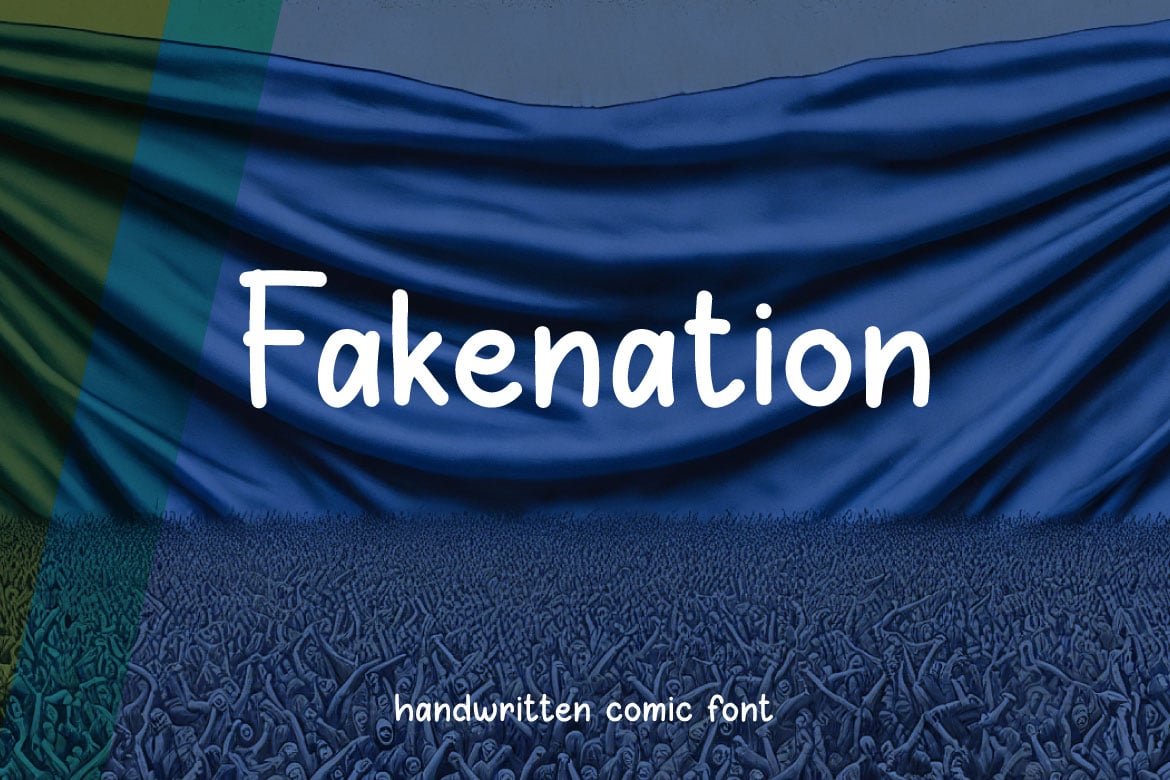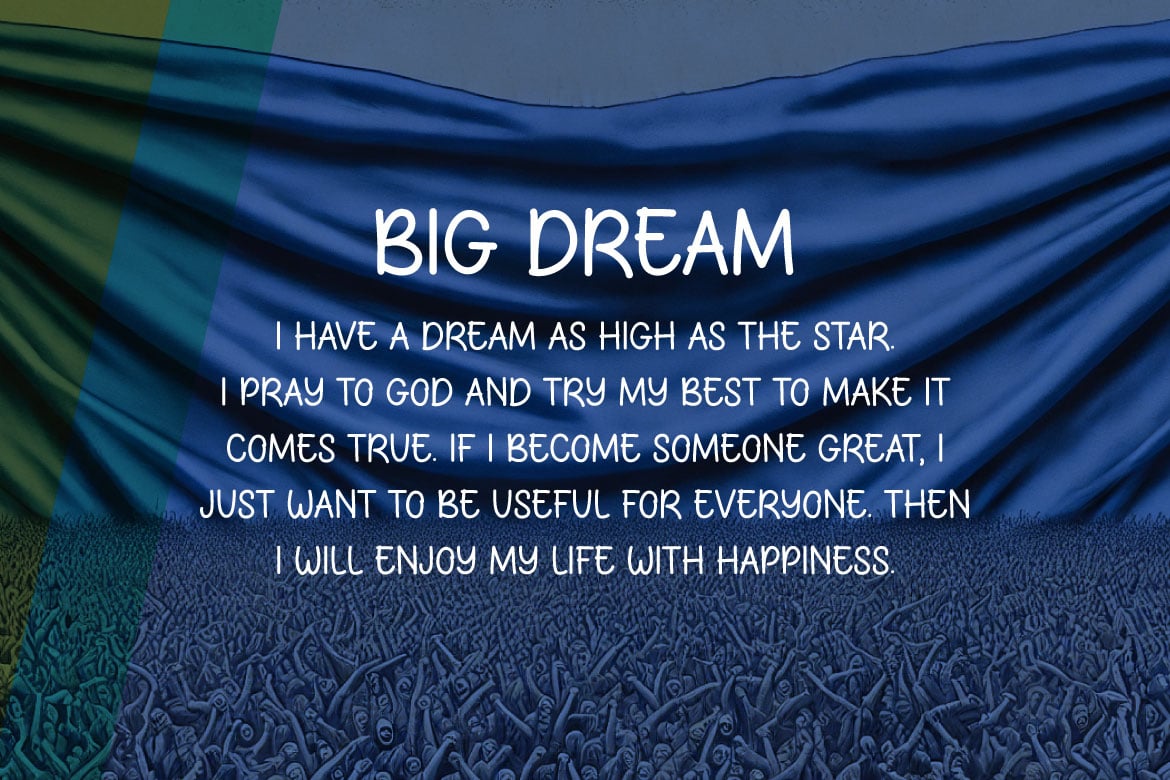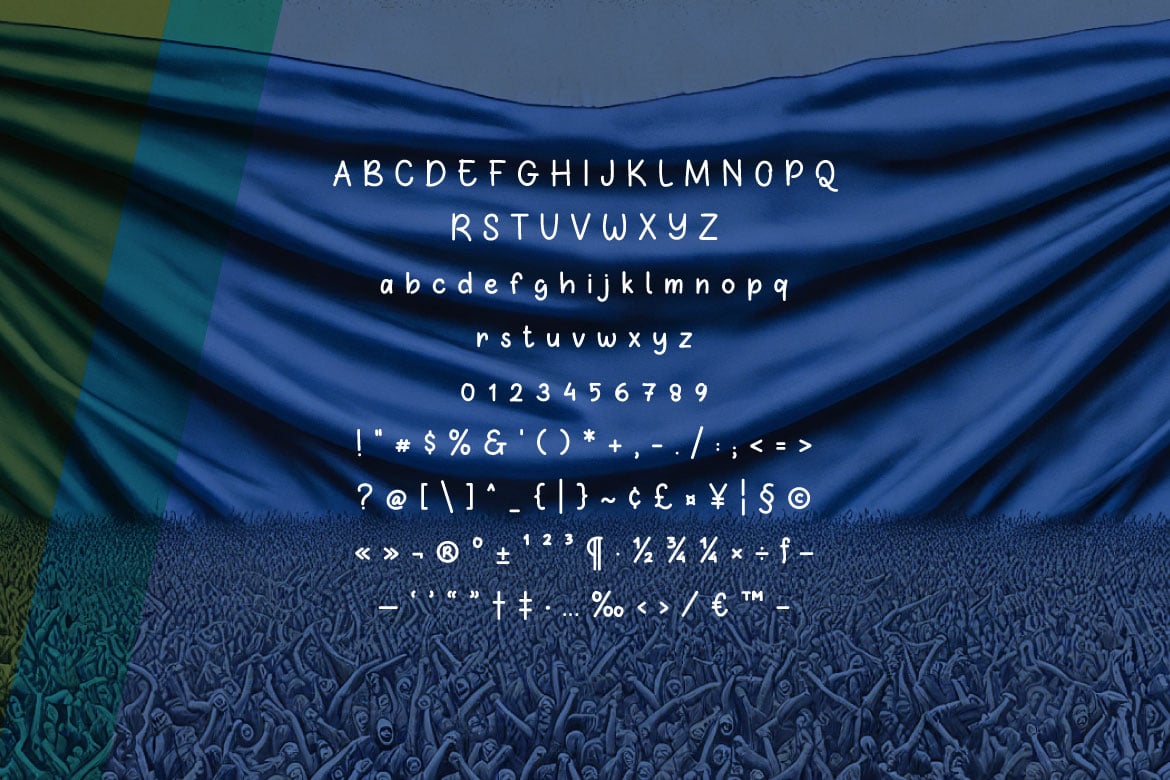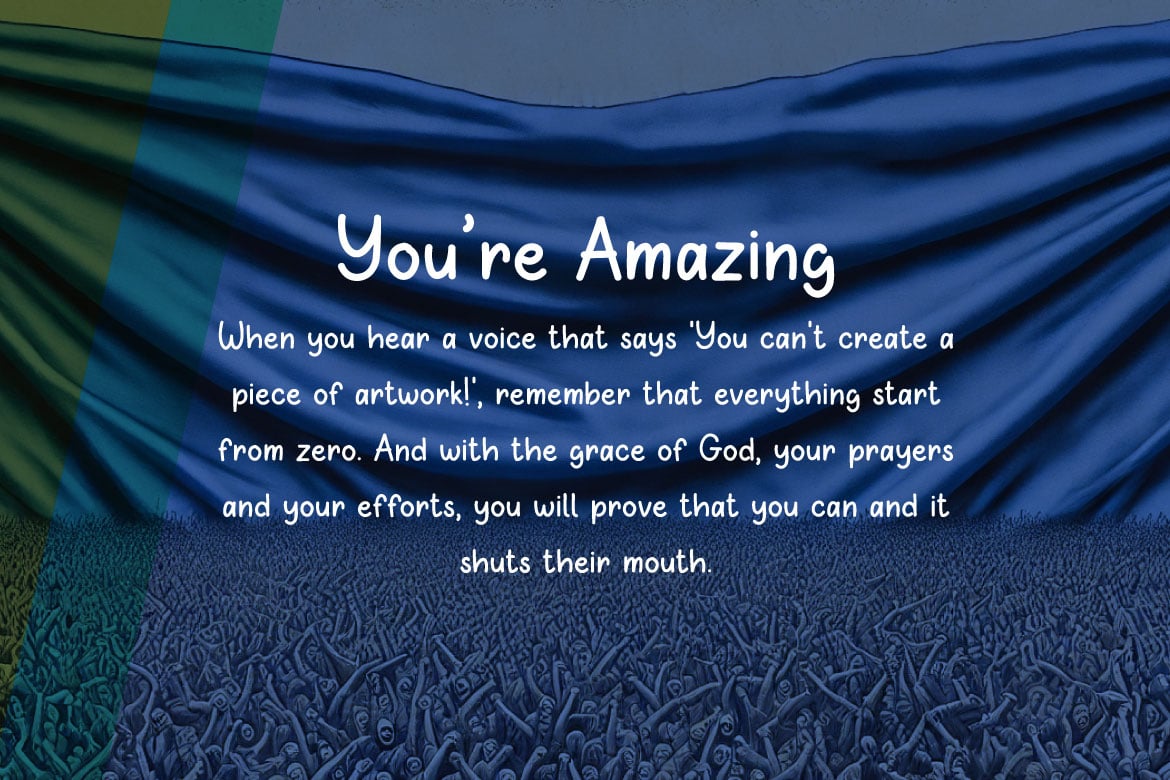
Fakenation – Handwritten Comic Font
Introducing our Fakenation – Handwritten Comic Font, a delightful blend of playful creativity and modern simplicity. This font captures the whimsical essence of comic-style handwriting, offering a clean and legible design that is perfect for a variety of projects. Ideal for comic books, children’s books, posters, and digital content, this font adds a touch of fun and personality while maintaining clarity and readability. With its smooth lines and versatile style, it effortlessly enhances any design. Elevate your projects with the charm and uniqueness of our Fakenation – Handwritten Comic Font today!